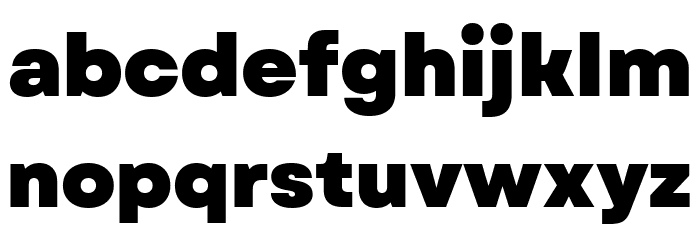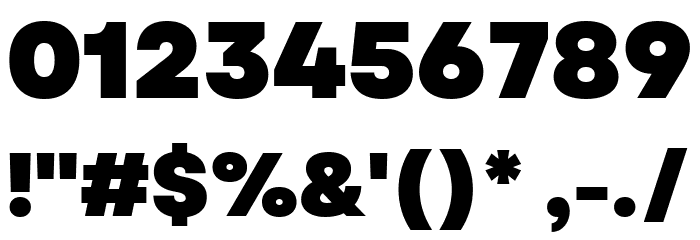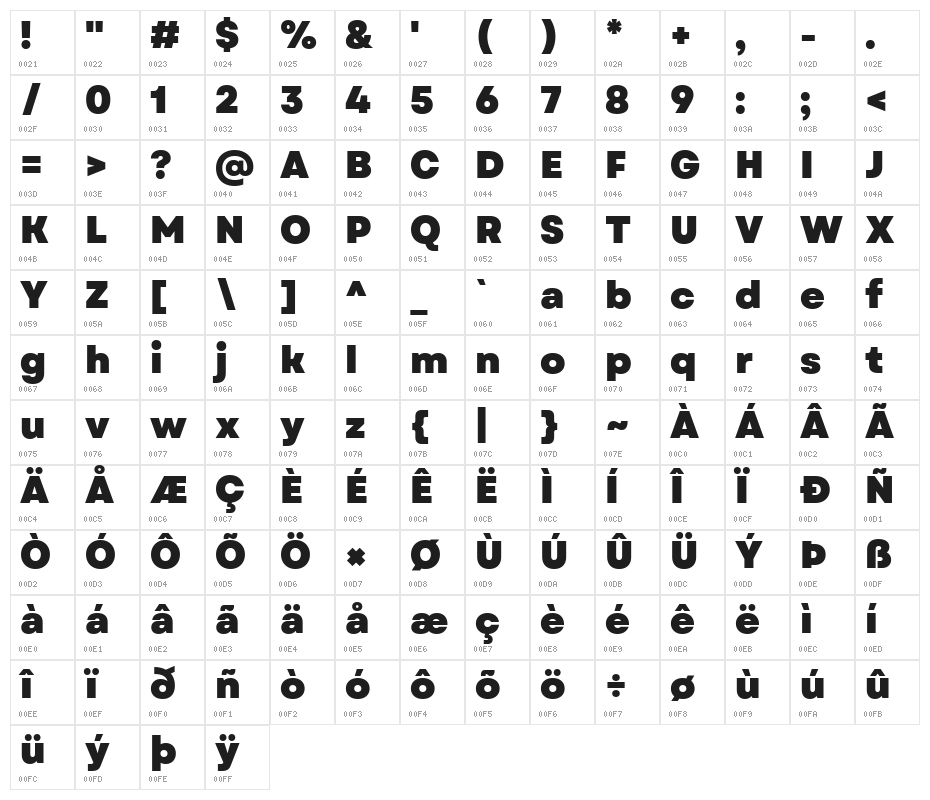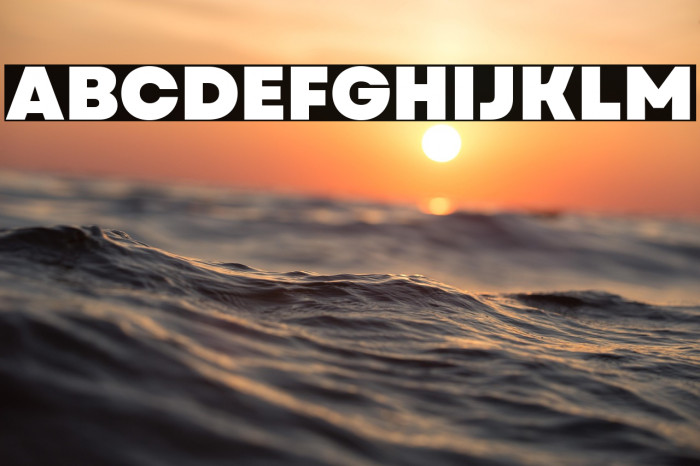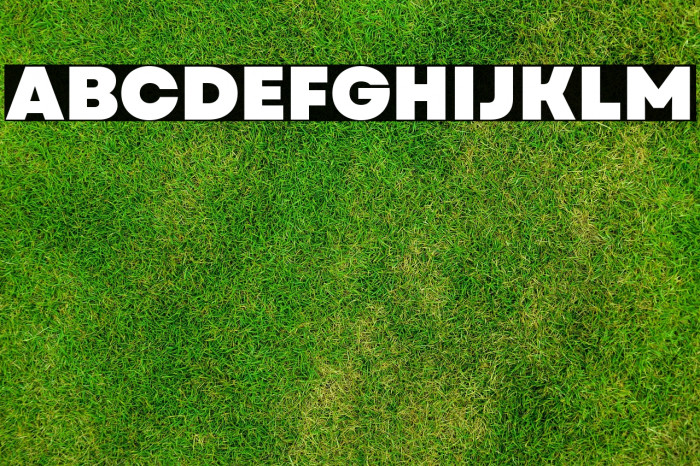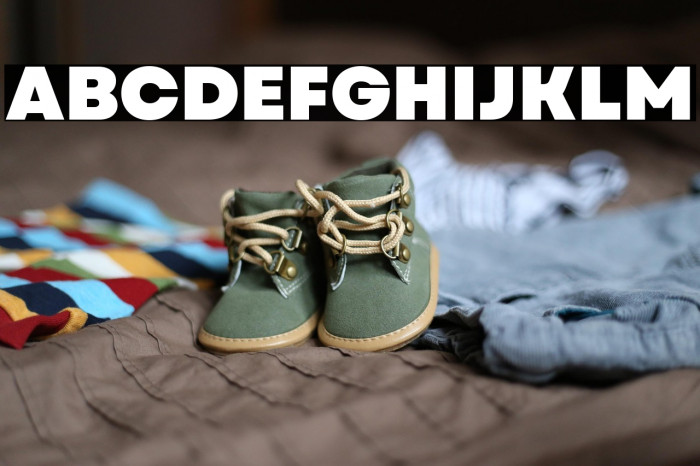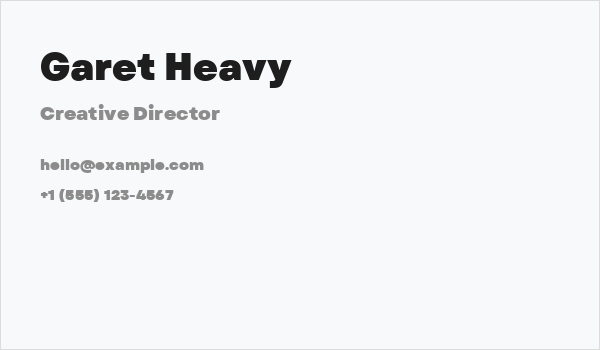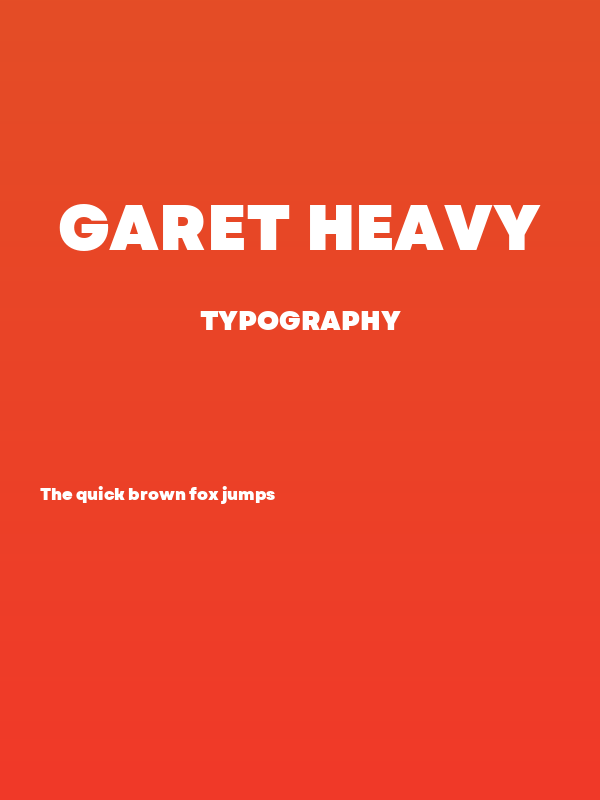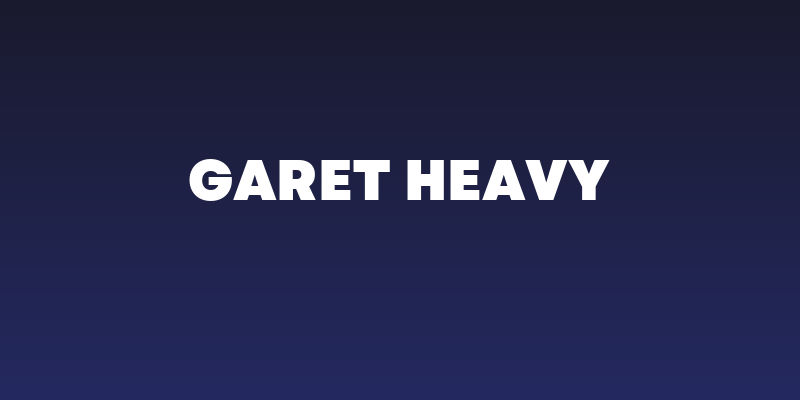
Garet Heavy Font
This font exhibits a bold and modern aesthetic with a strong geometric influence. The uppercase and lowercase letters are characterized by their uniform stroke weight, creating a sense of stability and strength. The rounded shapes of characters like 'O' and 'C' add a touch of softness, while the overall design maintains a clean and professional appearance. The numerals are equally bold, ensuring consistency across all characters. Special characters are designed with the same attention to detail, making them suitable for a variety of applications.
A bold, modern font with geometric influences and uniform stroke weight.
- Font: Garet Heavy
- Proposed Projects: Ideal for branding, advertising, headlines, and digital media projects that require a strong visual impact.
- Category: Sans-Serif
- Use Case: Headlines, Logos, Advertising